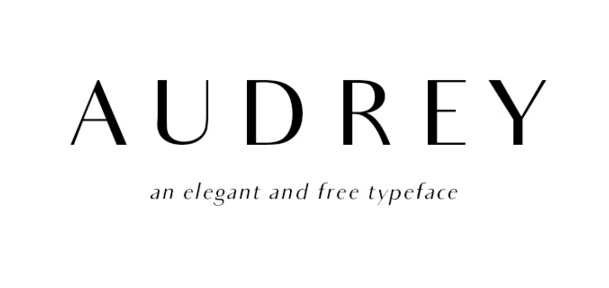
The Audrey Elegant Font was generously created and offered for free by cristina_pagnotta - download it now to enhance your next project with a professional-grade asset at no cost.